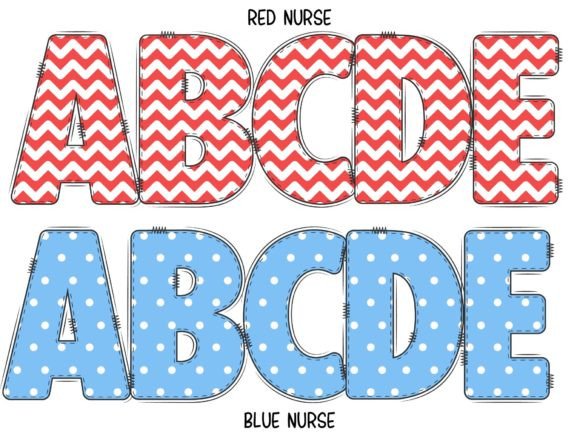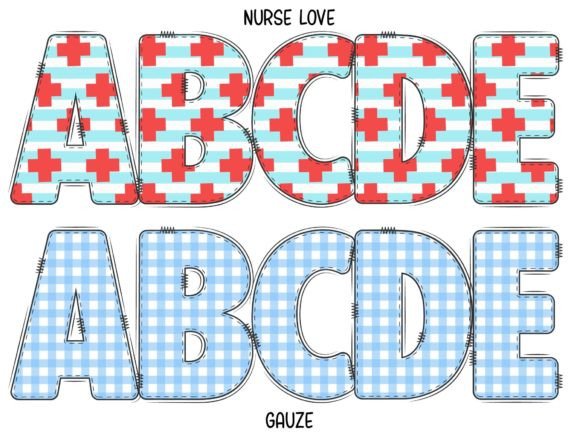
Nurse Love Font – Free Download
Introduction to Nurse Love Font
Nurse Love is a friendly colorful font with a nurse theme.
It embodies playfulness and is the perfect choice for pretty much anything that requires a jolly touch .
Key Features of Nurse Love Font
Why Choose Nurse Love Font?